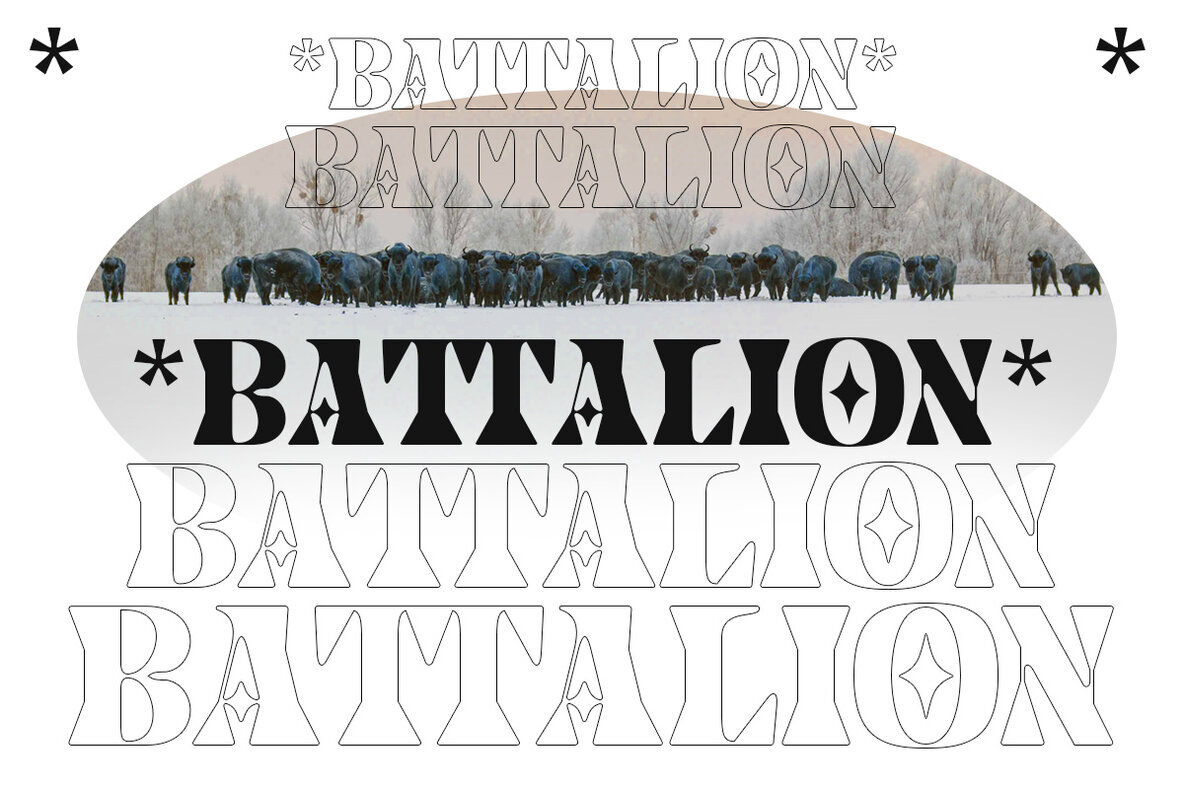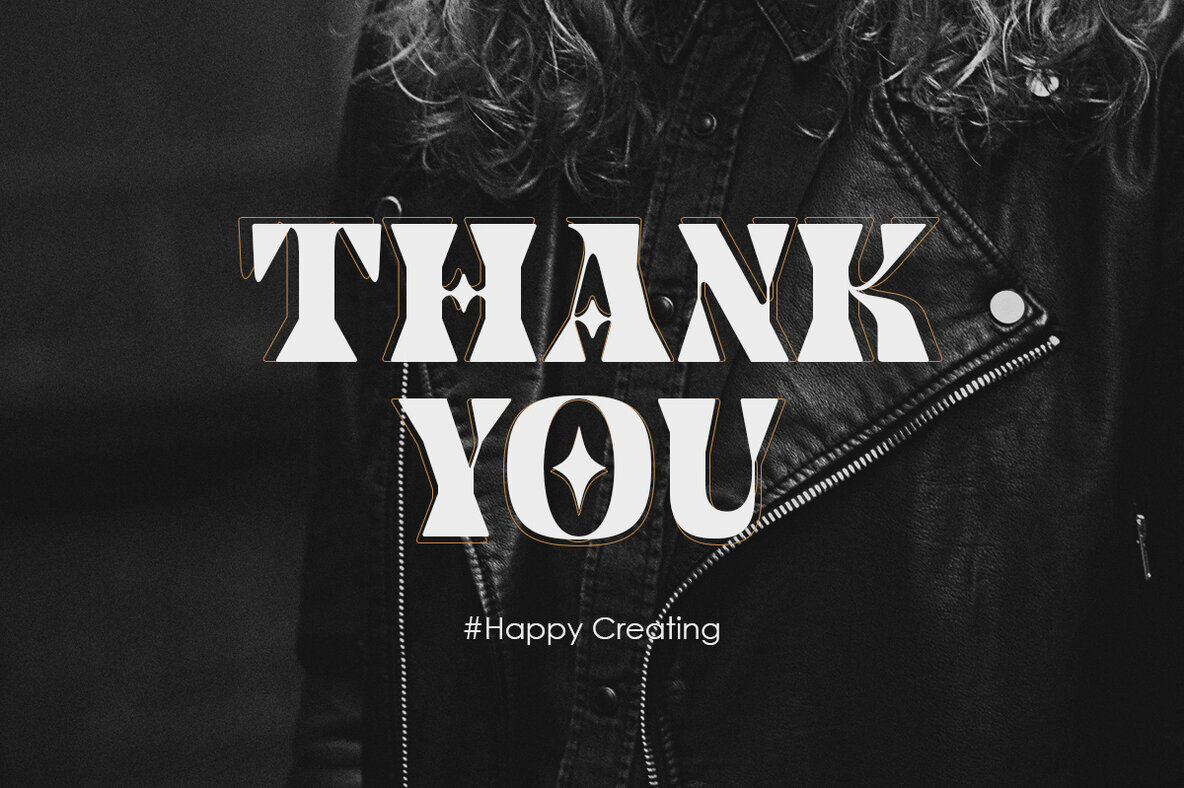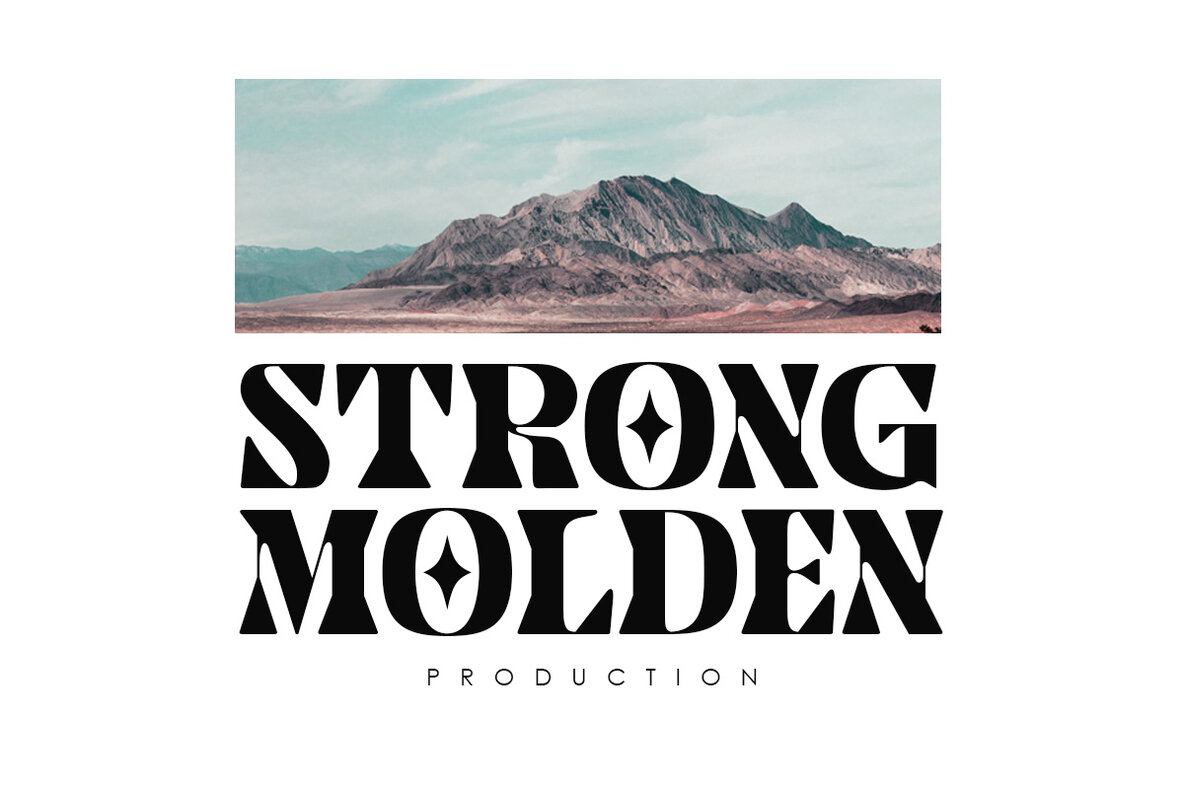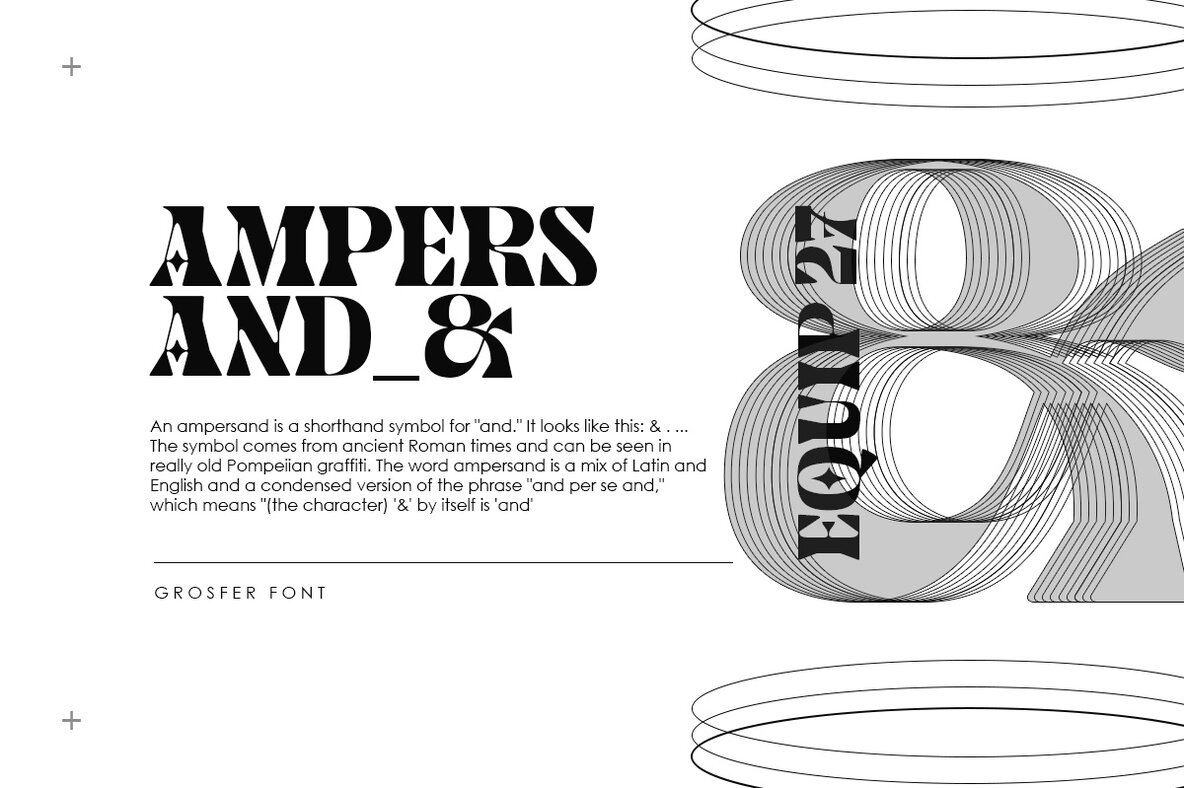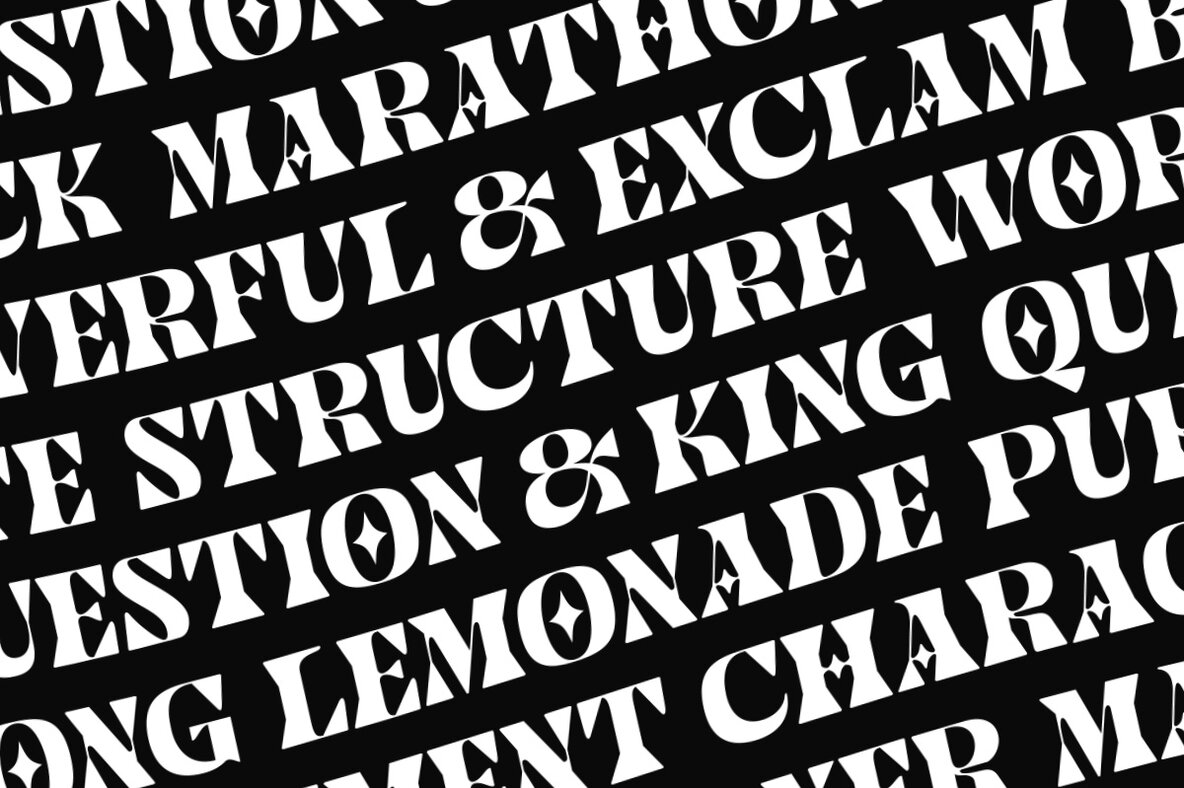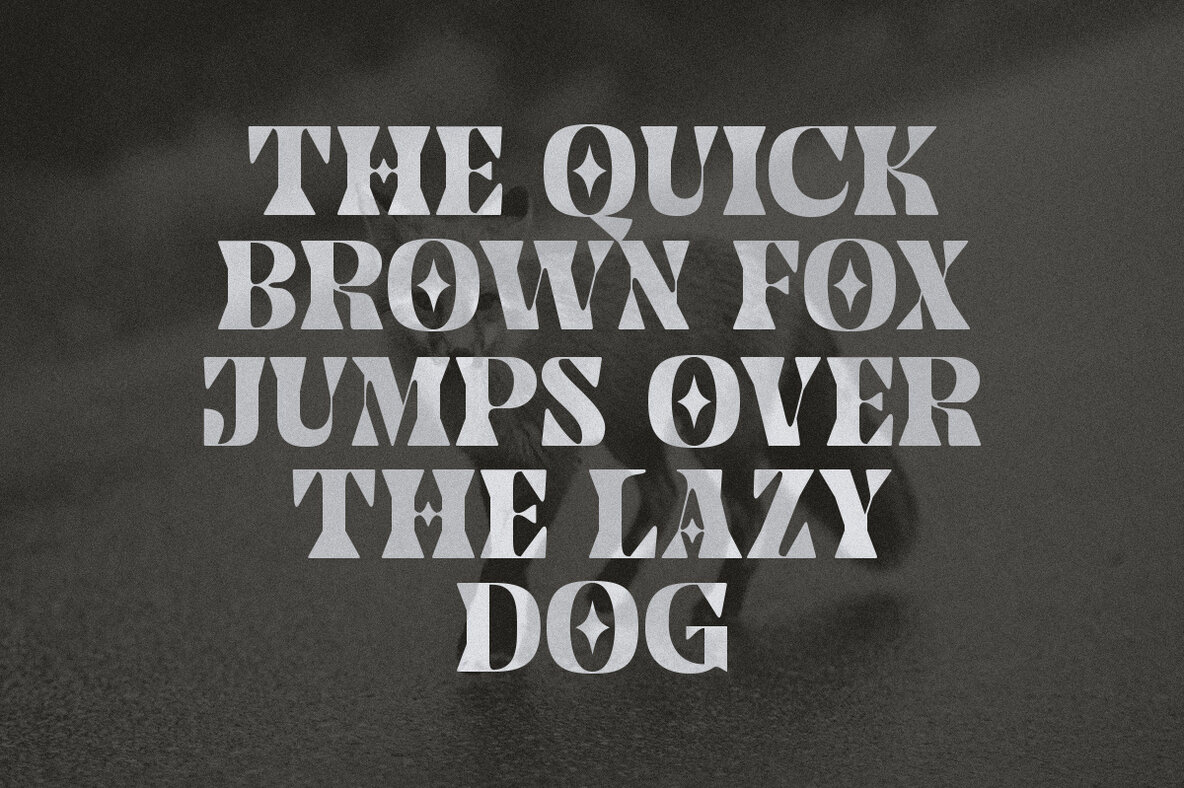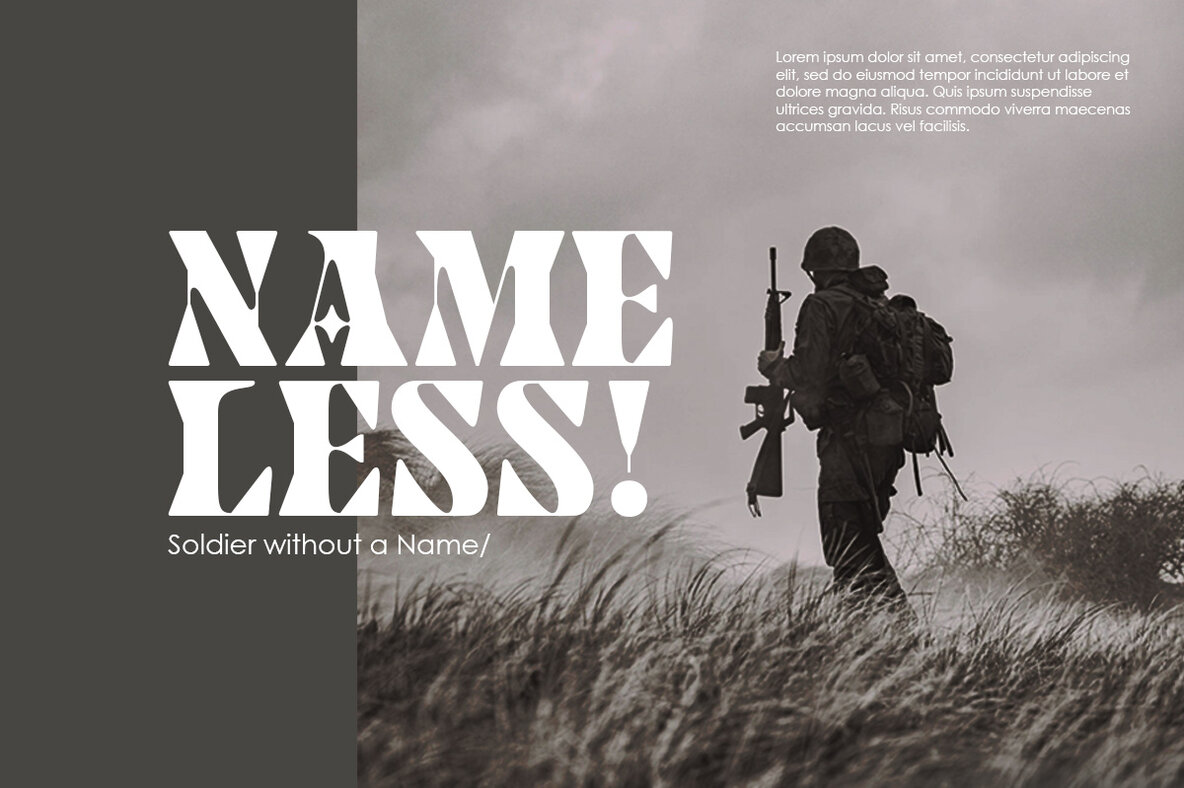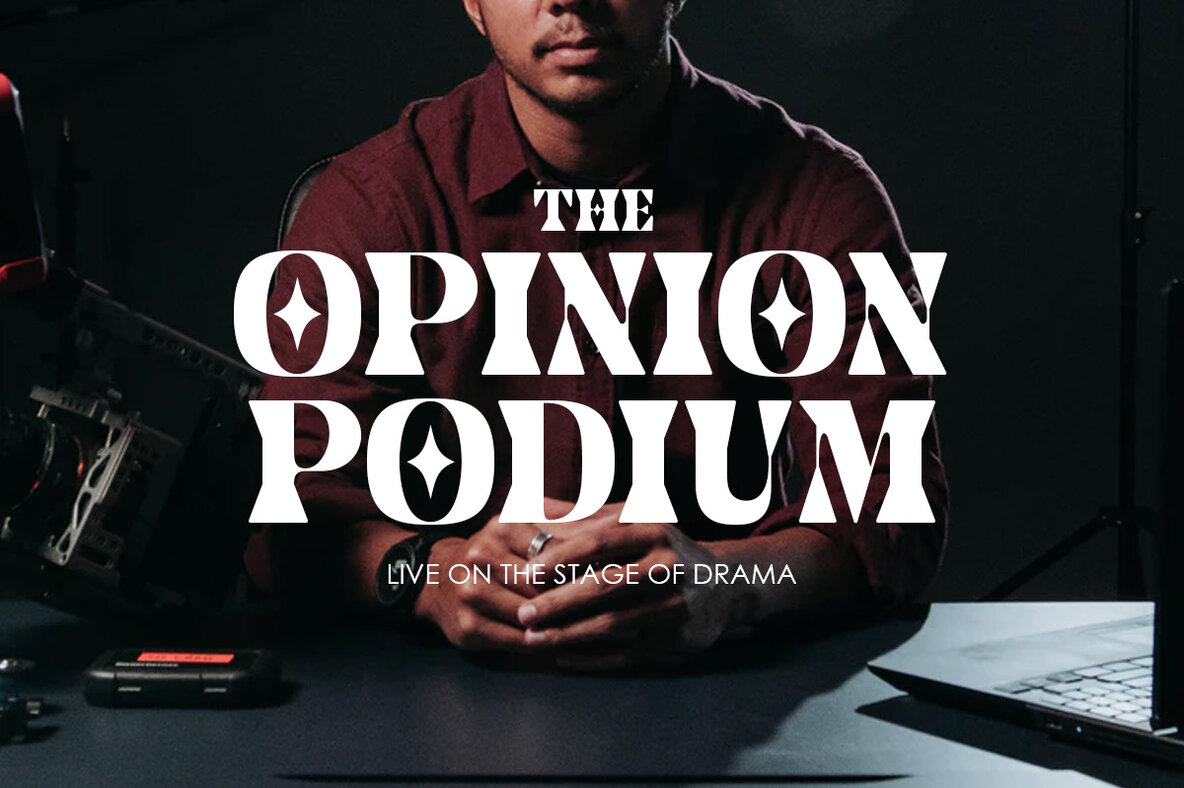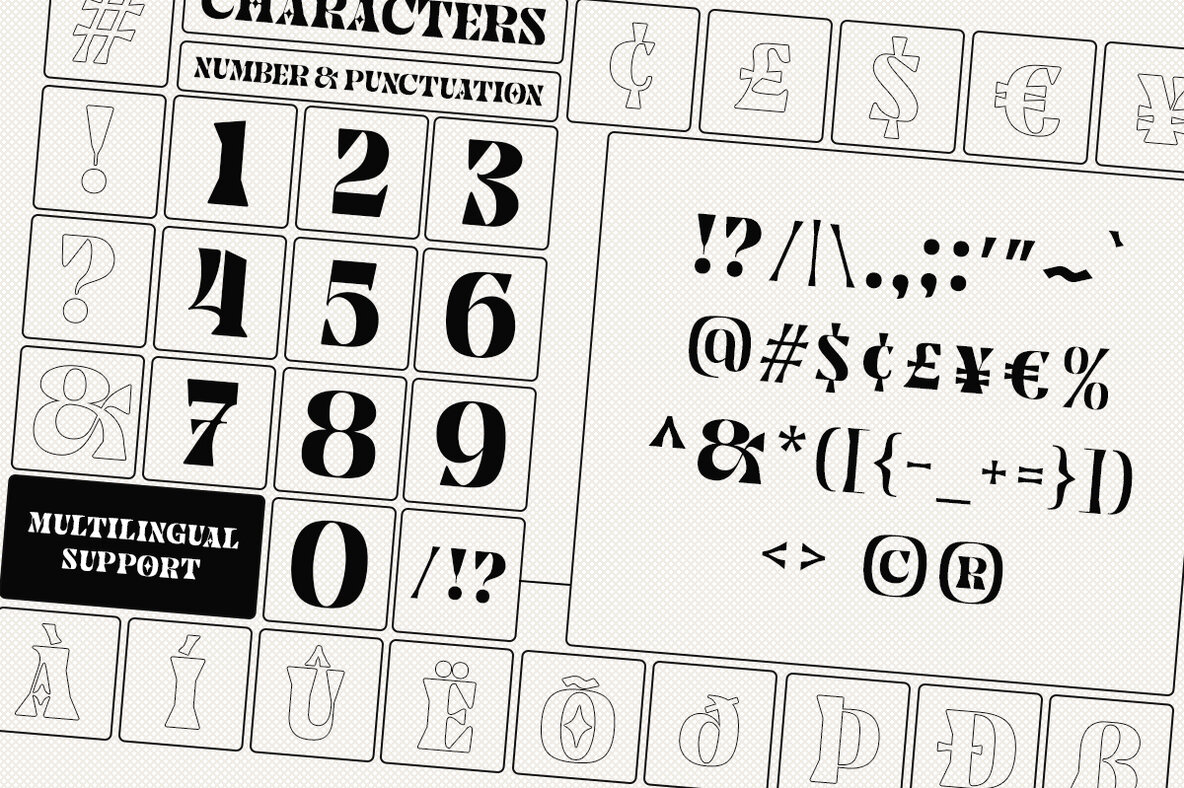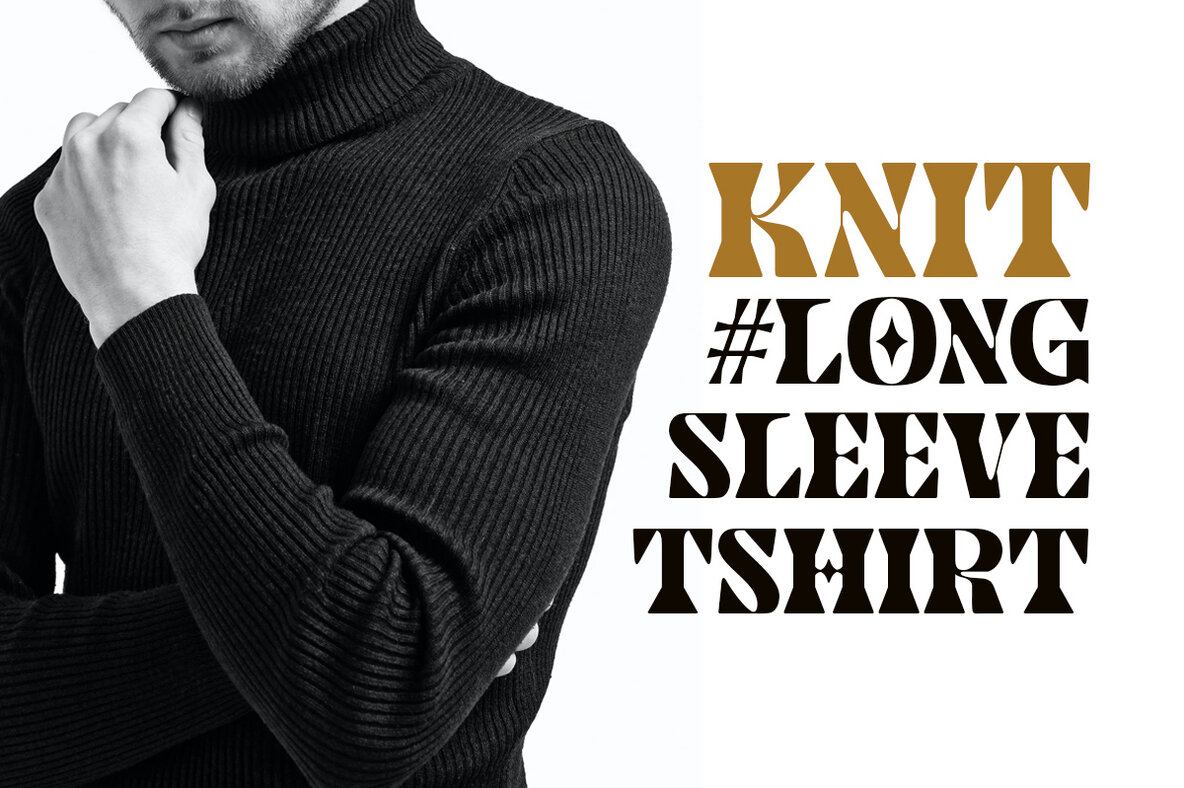
Grosfer Font
Grosfer Regular
Grosfer is a bold display font characterized by its geometric design and decorative flair. Its distinct cutout shapes and star-like motifs create a unique blend of modern and vintage aesthetics. Grosfer is perfect for impactful headlines, branding initiatives, and artistic projects that seek a striking and stylish appearance.
With its eye-catching design, Grosfer adds a captivating touch to any visual composition. The font's bold structure ensures that your message stands out, making it an excellent choice for designers who want to make a memorable impression. Ideal for both digital and print media, Grosfer infuses projects with a dynamic energy that is both innovative and timeless.